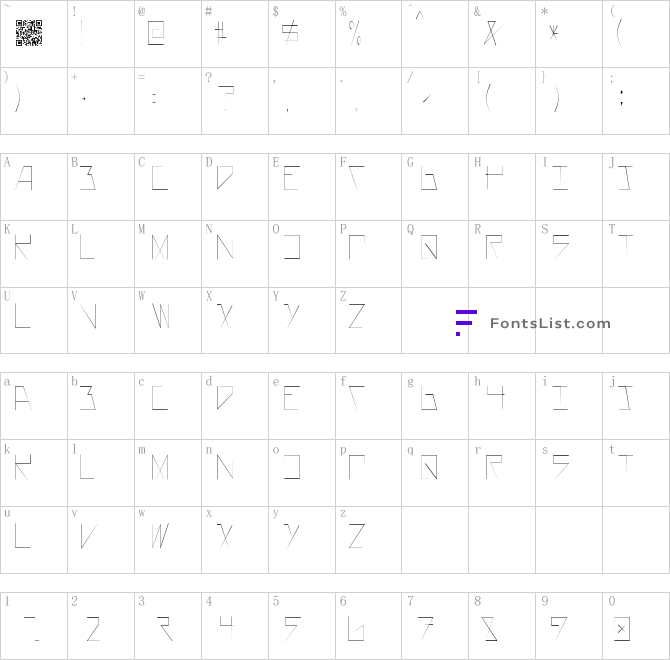
- Font Name:AsteriskThinLaser
AsteriskThinLaser.ttf is a very beautiful artistic font, AsteriskThinLaser.ttf is widely used in the design and printing of various books and pictures,AsteriskThinLaser.ttf has a strong visual impact,AsteriskThinLaser.ttf is a commonly used font in newspapers, magazines and books, and is used in posters, e-commerce Poster design, store design, logo design, font design and other fields.AsteriskThinLaser.